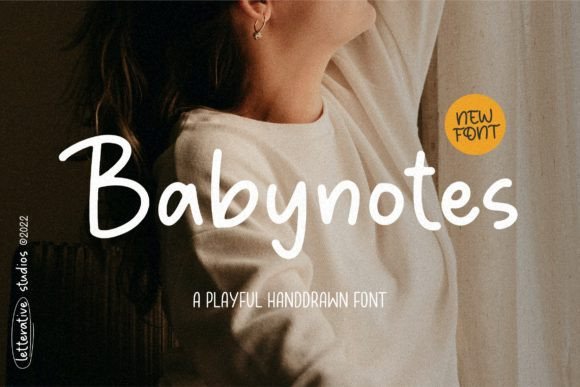
Babynotes Font: The Playful Hand-Drawn Font for All Occasions
Are you tired of using the same old fonts for your designs and crafts? Look no further than Babynotes Font, a playful hand-drawn font that’s perfect for adding a personal touch to your projects. Whether you’re a designer, crafter, or simply someone who loves to create, Babynotes Font is a versatile and charming font that’s sure to become your new favorite.
The Charm of Hand-Drawn Fonts
Hand-drawn fonts have a unique charm that can add a touch of warmth and personality to any design. They’re perfect for creating a sense of nostalgia, whimsy, or playfulness, and can be used in a variety of contexts, from digital designs to handmade crafts. Babynotes Font is no exception, with its playful and irregular lines that give it a distinctly hand-drawn feel.
What Makes Babynotes Font Special?
So what sets Babynotes Font apart from other fonts? Here are just a few of its standout features:
- Playful and whimsical: Babynotes Font has a lighthearted and carefree feel that’s perfect for creating designs that are fun and playful.
- Hand-drawn charm: The font’s irregular lines and imperfections give it a distinctly hand-drawn feel that’s full of character.
- Versatile: Babynotes Font can be used in a variety of contexts, from digital designs to handmade crafts, and can be paired with a range of other fonts and design elements.
- Easy to read: Despite its playful feel, Babynotes Font is still easy to read, making it perfect for use in body text as well as headings and titles.
Uses for Babynotes Font
So what can you use Babynotes Font for? The possibilities are endless! Here are just a few ideas to get you started:
- Crafts: Babynotes Font is perfect for use in handmade crafts, such as scrapbooking, card making, and journaling.
- Digital design: The font can be used in digital designs, such as social media graphics, blog posts, and presentations.
- Greeting cards: Babynotes Font is a great choice for creating greeting cards, invitations, and other paper crafts.
- Signs and displays: The font can be used to create eye-catching signs and displays for events, parties, and businesses.
Tips for Using Babynotes Font
Here are a few tips for getting the most out of Babynotes Font:
- Pair it with other fonts: Babynotes Font pairs well with a range of other fonts, from simple sans serifs to more decorative scripts.
- Experiment with colors: The font looks great in a range of colors, from bright and bold to soft and pastel.
- Use it for headings and titles: Babynotes Font is perfect for use in headings and titles, where its playful feel can really shine.
- Don’t be afraid to get creative: Babynotes Font is a versatile font that can be used in a wide range of contexts, so don’t be afraid to experiment and try new things!
In conclusion, Babynotes Font is a playful hand-drawn font that’s perfect for designers, crafters, and anyone who loves to create. With its charming and whimsical feel, versatility, and ease of use, it’s sure to become your new go-to font for all occasions. So why not give it a try and see what amazing designs you can create?